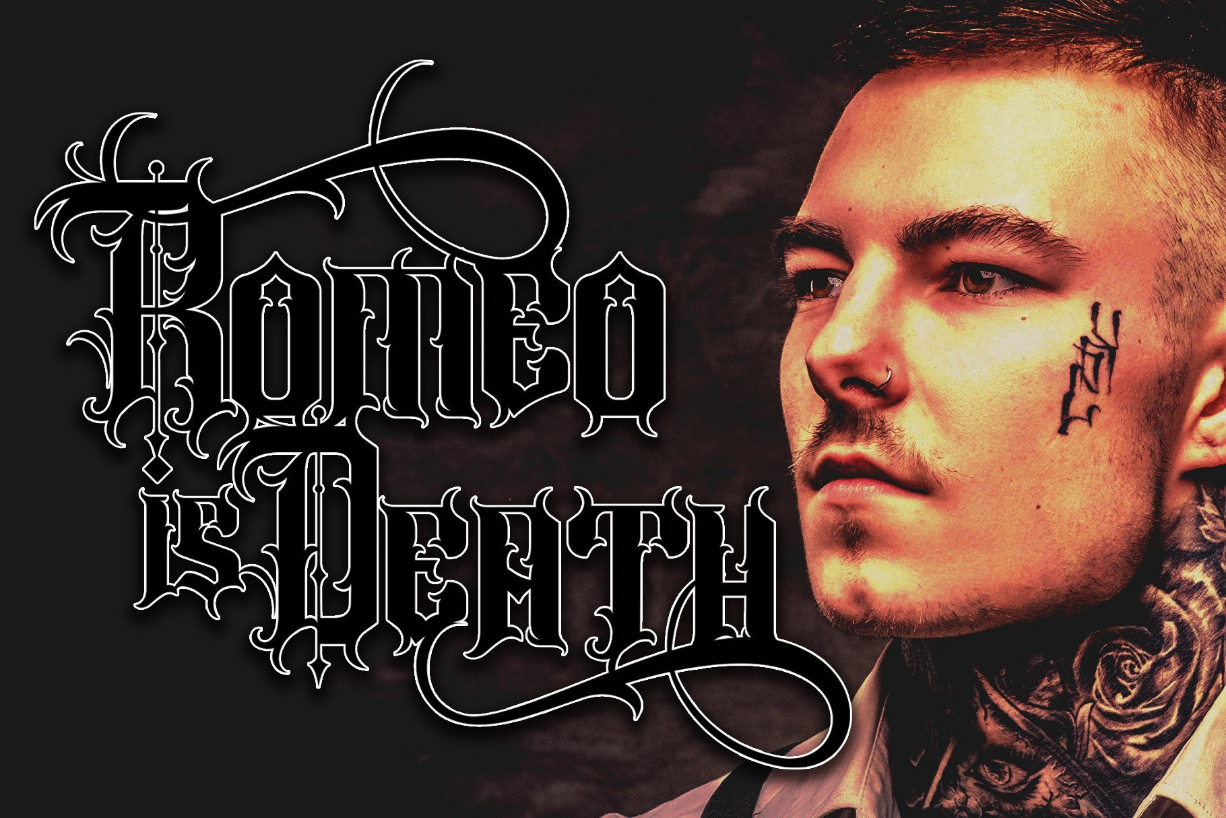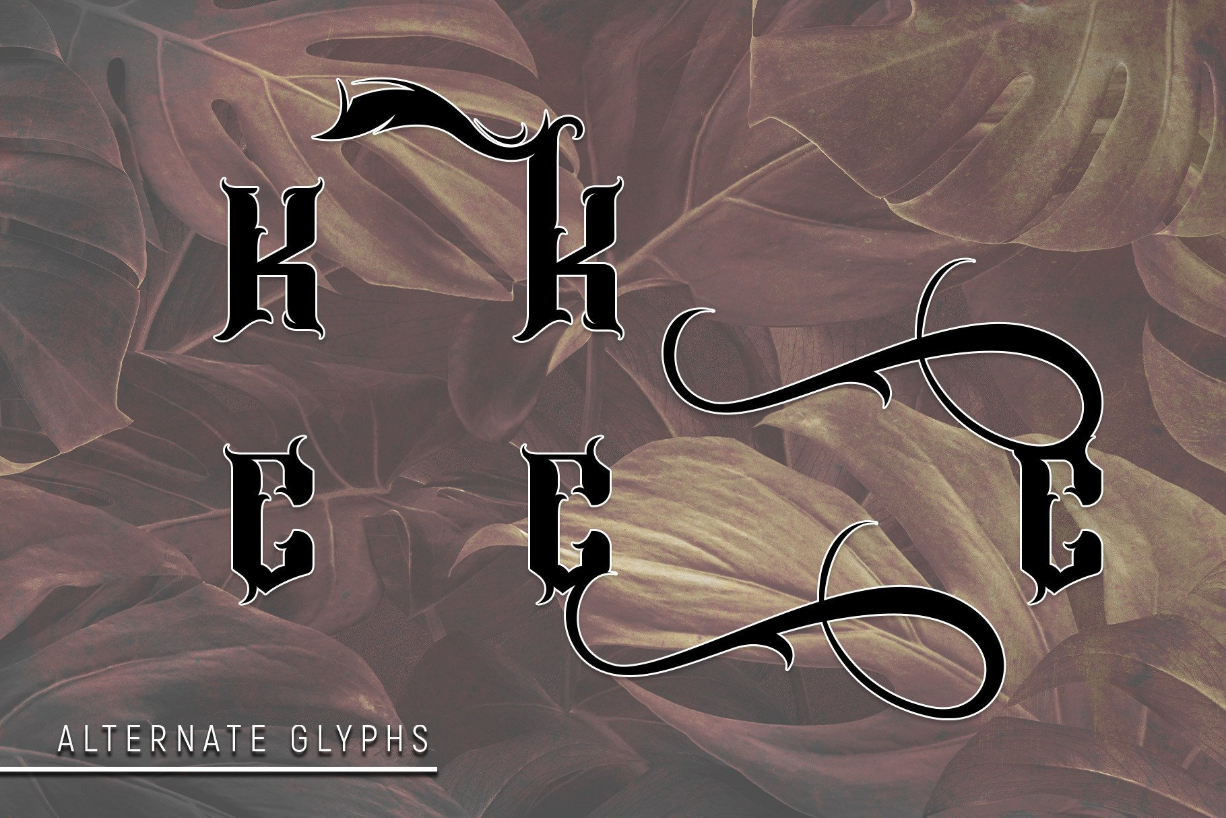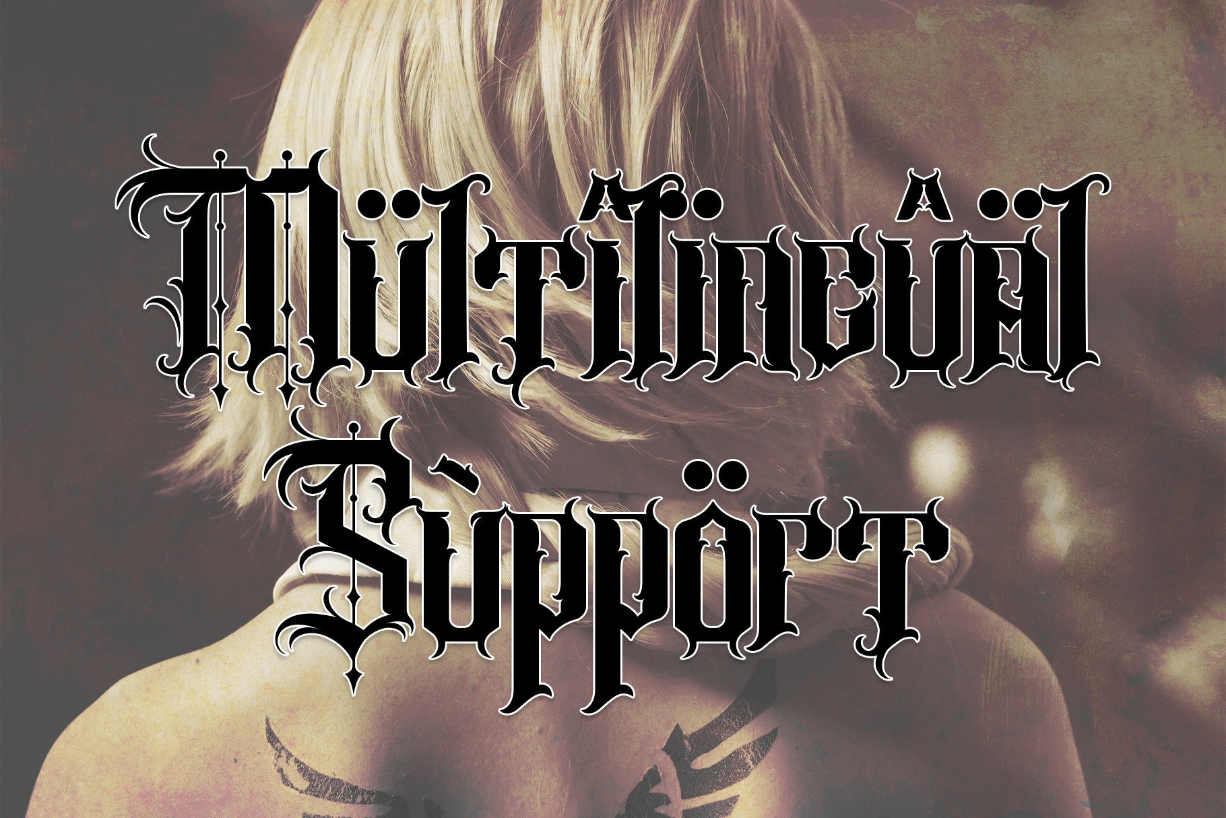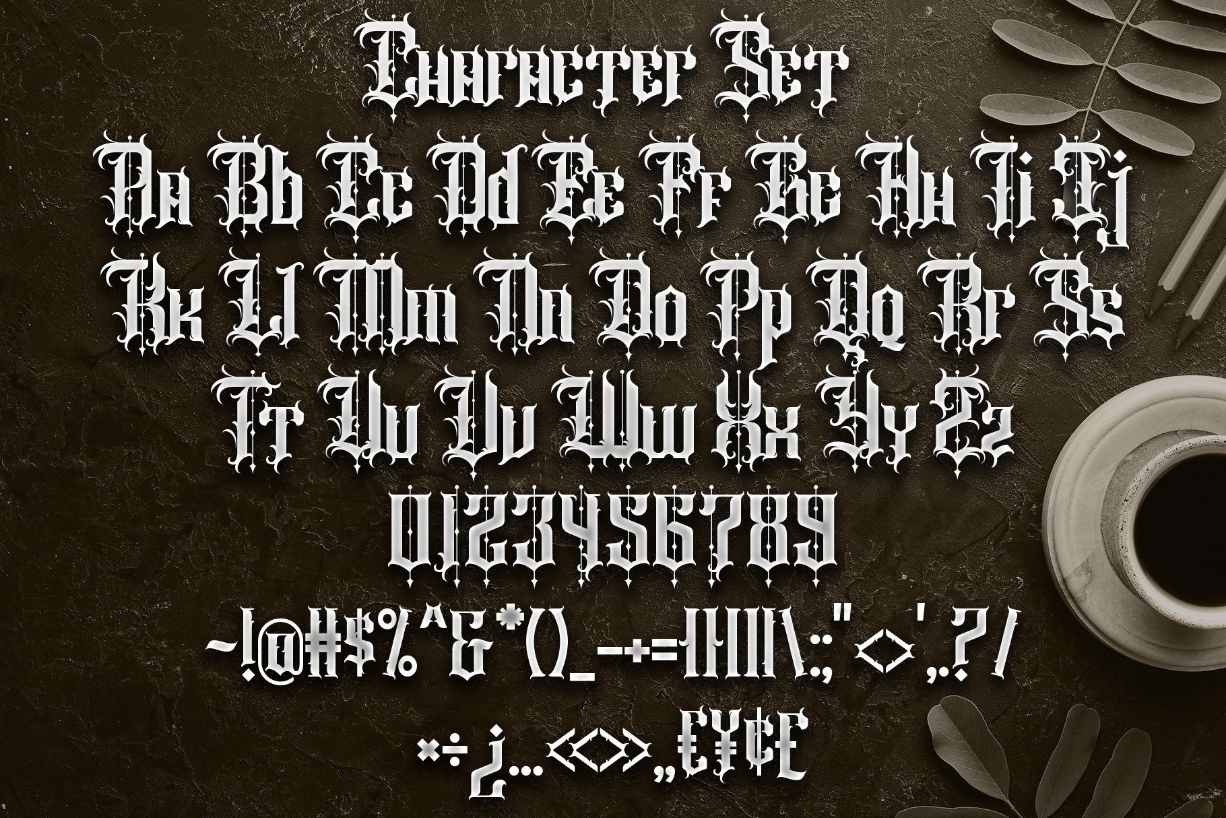
Rusticle Font
About Rusticle Font
Rusticle is a contemporary blackletter tattoo font that feels right at home on logos, t-shirt designs, posters, flyers, and other brand identity items. Add it confidently to your projects, and you will love the results.